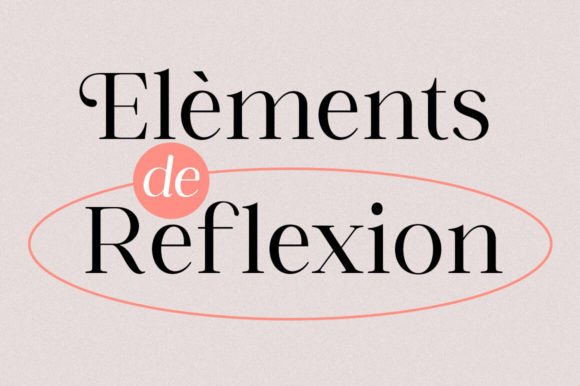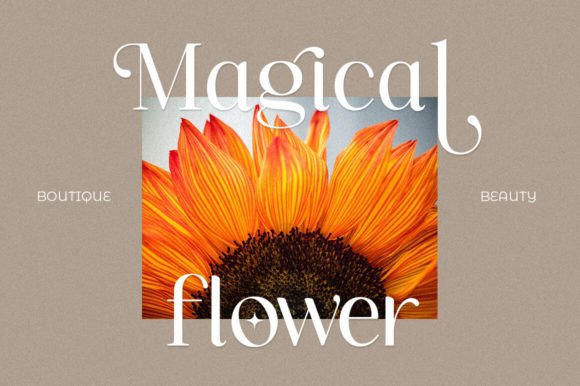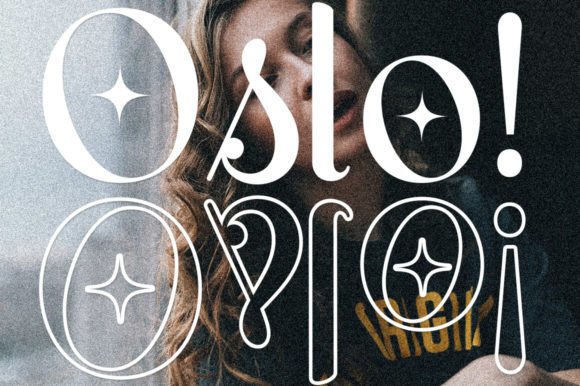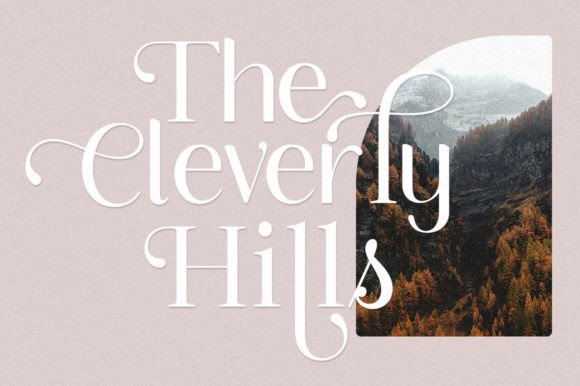
The Midnight Revelation: Uncovering the Charm of After Midnight Font
I’ll never forget the late nights spent working on a design project, agonizing over finding the perfect font. My client wanted something elegant, yet playful; something that would make their brand stand out. As I scrolled through font after font, I stumbled upon After Midnight – a serif font with a simple, clean look and a dash of sophistication. It was love at first sight! ✨
- ✨ Smooth Curves: After Midnight’s curves are beautifully smooth, making it perfect for large and small sizes.
- ✅ Beautiful Ligatures: The font comes with a range of ligatures that add a touch of elegance to any design.
- 🎉 Versatility: From headlines to logos, labels to packaging, After Midnight is a versatile font that can handle it all.
- 🔍 OpenType Features: The font supports OpenType features, allowing for a range of stylistic alternates and glyphs.
While After Midnight is an excellent font, there are a few things to keep in mind:
- ⚠️ Some characters may require manual kerning for optimal results.
- 🤔 Limited Cyrillic support: If you’re working with Cyrillic text, you may want to double-check the font’s compatibility.
The Story Behind After Midnight
While the origins of After Midnight are shrouded in mystery, it’s easy to imagine a designer pouring their heart and soul into creating a font that’s both beautiful and functional. Perhaps they were inspired by the smooth curves of a moonlit night, or the elegant lines of a luxury brand. Whatever the inspiration, After Midnight is a font that’s sure to delight.
| Author | Natural Ink |
| Q: What type of projects is After Midnight suitable for? | A: After Midnight is versatile and can be used for a wide range of projects, including headlines, logos, labels, branding projects, magazines, homeware designs, product packaging, and more. |
| Q: Does After Midnight support OpenType features? | A: Yes, After Midnight supports OpenType features, including stylistic alternates, ligatures, and glyphs. |